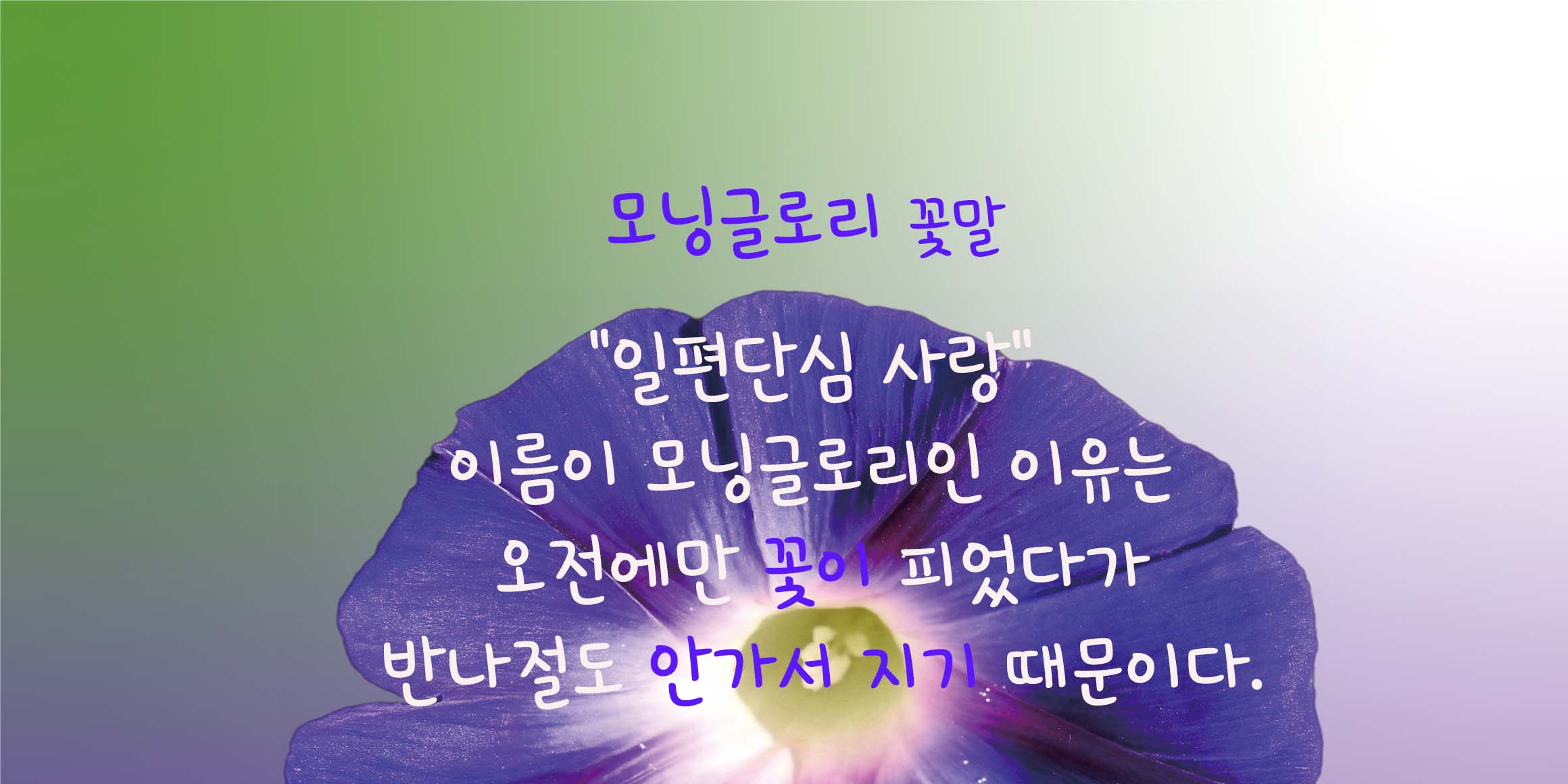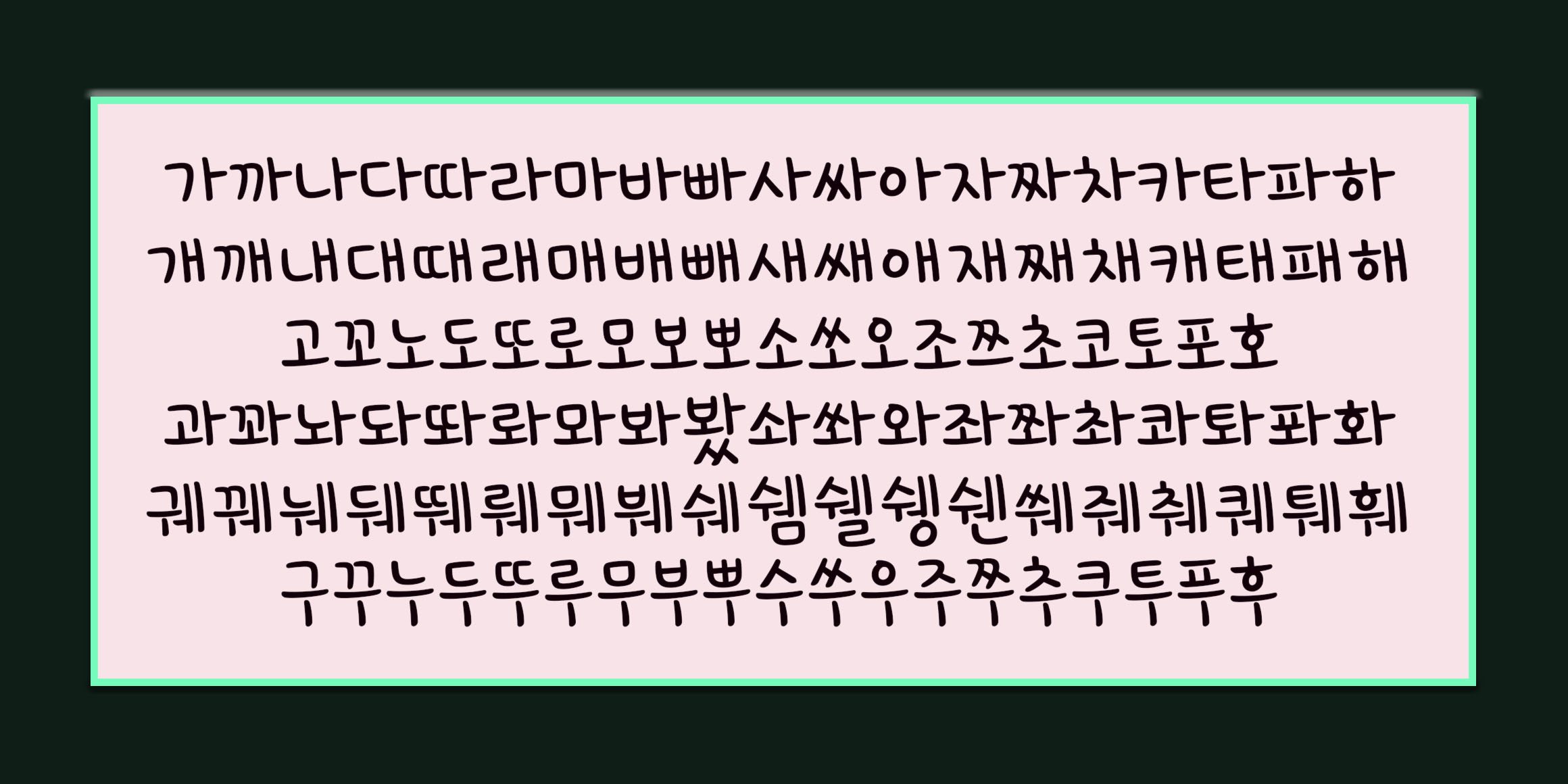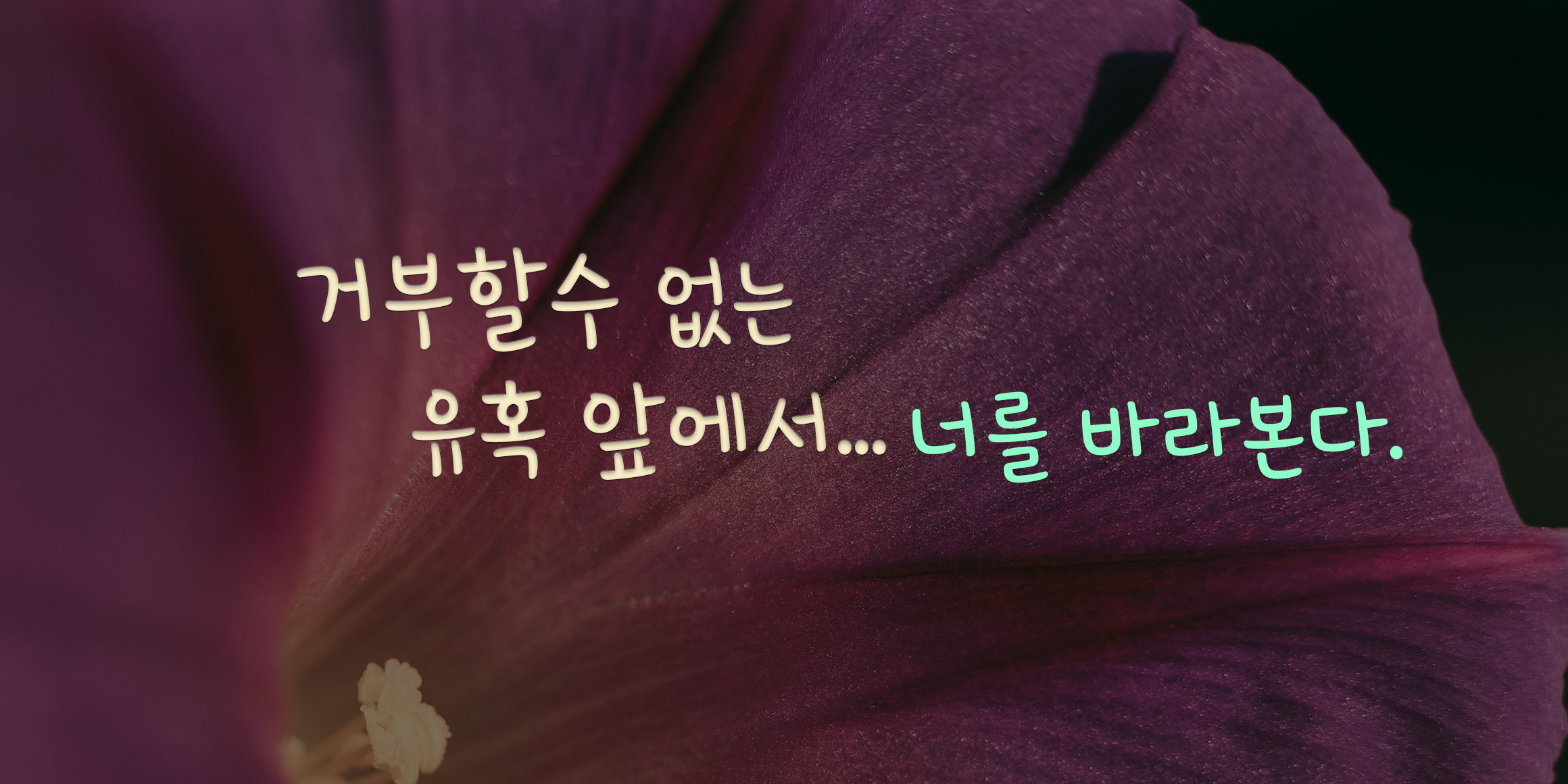
Sandoll Byeolidoel
Sandoll Byeolidoel is a somewhat Kitsch brush written font with a dimensional effect.
There are stars and popup effects along the text, giving it a friendly and rhythmic element. It also catches the eye, perfect for titles or bold texts.
- Choi sungwoo
- Sandoll 별이될꺼야 / Sandoll Byeolidoel